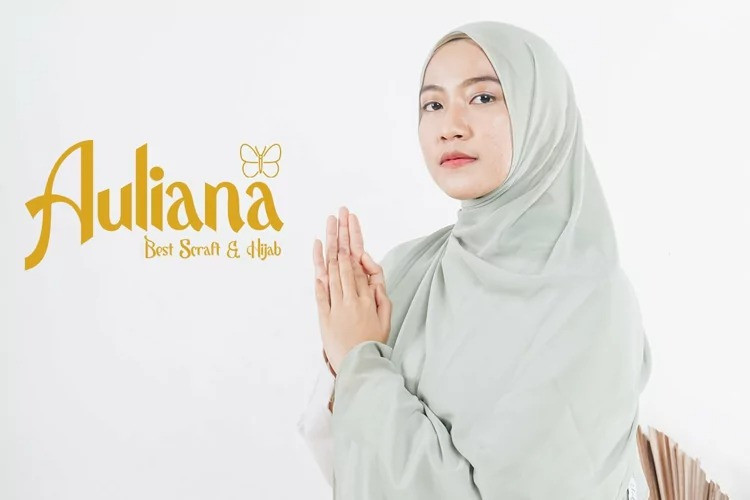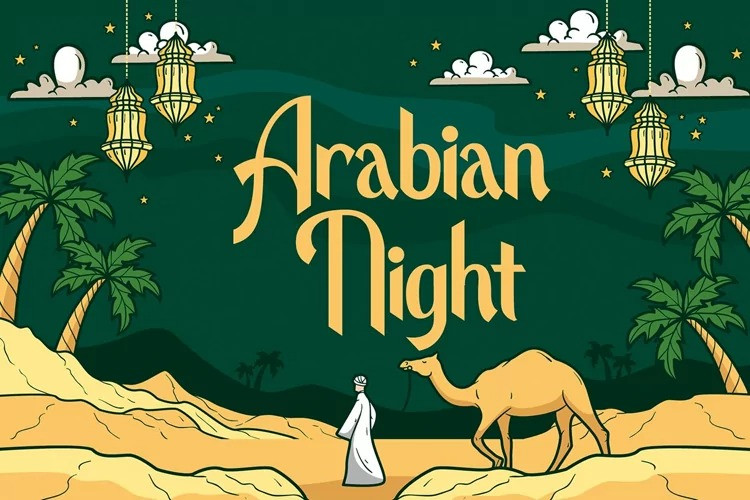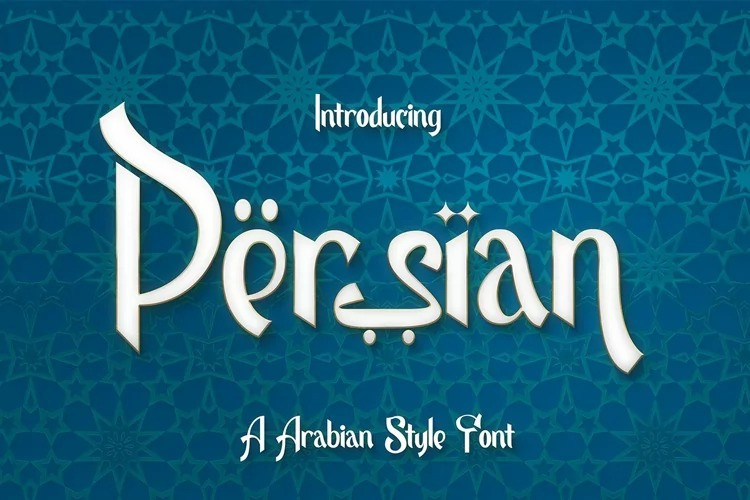
Persian Font
Grab our new font, Persian Arabic Font, This premium Arabic style font is a great way to bring a new level of luxury to your designs. Whether you’re creating a logo for your website, magazine cover, packaging project, or other design work, our fonts are perfect for you. Our collection includes a wide variety of fonts from traditional to modern, with many different styles in between.